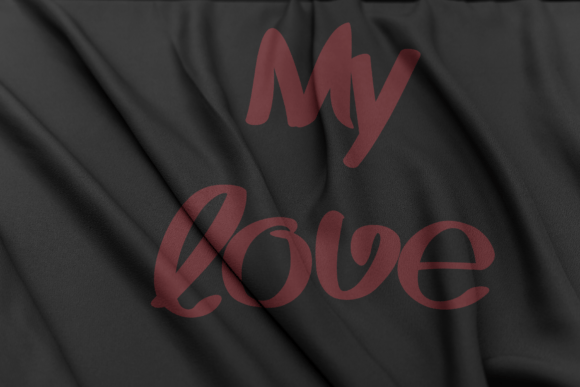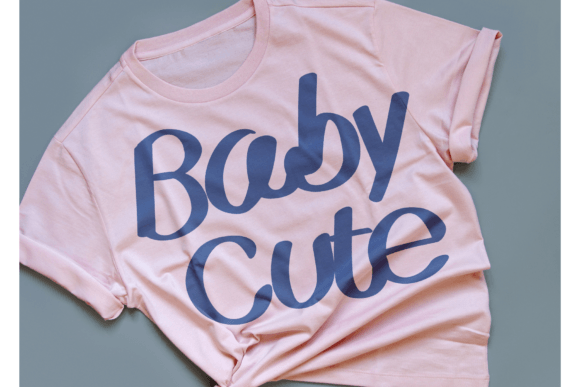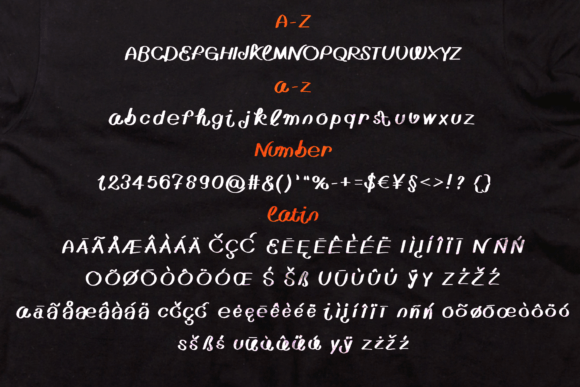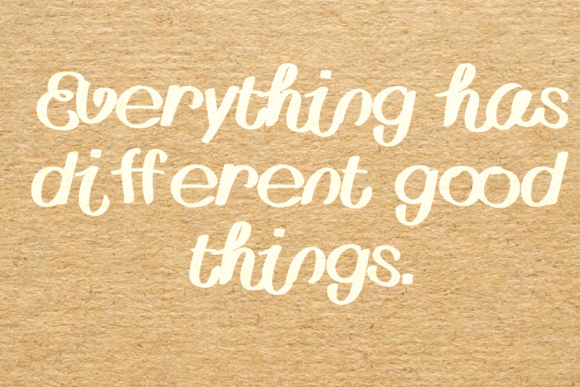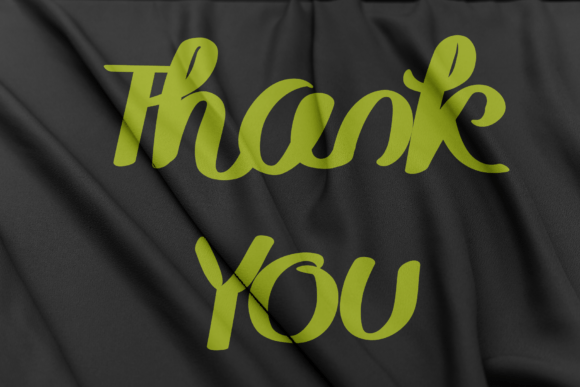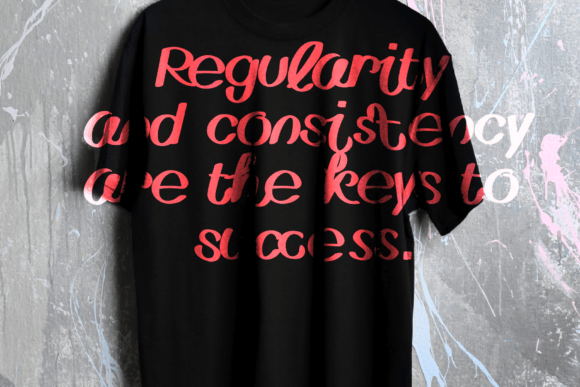
Discover the Joy of Child Font: Elevate Your Designs
Have you ever sat at your desk, staring blankly at a blank canvas, trying to conjure up the perfect font for your latest design project? You know, that moment when the creative wheels start turning and you envision something truly magical? For designers, this is the moment when the right font can make all the difference. It’s the spark that sets the flame ablaze, transforming a simple design into a work of art.
Enter Child Font, a beautiful and timeless handwritten font that’s sure to capture the hearts of designers everywhere. With its unique and beautiful touch, Child Font is the perfect choice for creating eye-catching logos, branding, and quotes that truly come alive. Whether you’re a seasoned pro or just starting out, Child Font is an invaluable addition to your design toolkit, offering a level of creativity and flair that’s hard to find elsewhere.
Key Features of Child Font
- Unique Characteristics: Child Font features a unique, hand-drawn style with subtle imperfections, giving it a distinctive and playful feel.
- Kerning and Ligatures: Child Font includes advanced kerning and ligature pairs, ensuring smooth text flow and optimal readability.
Child Font Review
Overall, I think the Child Font is a lovely, playful font that could be a great addition to your design projects. ✨ Here are a few things that work well:
- It has a youthful, energetic feel that’s perfect for kids’ content, education, or family-focused branding.
- The rounded edges and simple shapes make it easy to read, even at small font sizes.
- The font comes in a range of weights and styles, giving you plenty of options for customizing your designs.
However, there are a few limitations to consider: ⚠️
- The font may be too playful for more serious or formal content, so use it sparingly.
- The uppercase letters can be a bit too wide for some designs, so be mindful of text spacing.
- The font may not be as versatile as some other options, so it’s best suited for specific niches or projects.
Overall, I think the Child Font is a solid choice for designers looking for a fun, easy-to-read font. With some careful planning and consideration of its limitations, it can be a great addition to your design toolkit.
Tips: Use Child Font for titles and headings to create a playful and whimsical feel. Experiment with different font sizes and colors to add visual interest.
Tips: Use Child Font to create hand-drawn or handwritten effects. Experiment with layer blending modes and opacity to add depth and texture.
Tips: Use Child Font to create a friendly and approachable tone. Experiment with different font sizes and colors to highlight important information.
Child Font is perfect for:
– Children’s books and educational materials
– Playful and whimsical branding
– Handwritten or handwritten-style designs
– Friendly and approachable tone
Alternatives to Child Font
Playfair Display is a high-end serif font ideal for titles and headings. It is a classic choice for luxury brands and elegant designs. When to use: For high-end or luxury brands, or when you want to add a touch of sophistication to your design.
Comparison to Child Font: While Child Font is a clean and modern sans-serif font, Playfair Display is a more ornate and traditional serif font. Playfair Display is more suitable for formal and elegant designs, whereas Child Font is better suited for modern and minimalist designs.
Lato is a sans-serif font with a modern and clean design. It is highly legible and suitable for body text. When to use: For modern and minimalist designs, or when you want a font that is easy to read on digital screens.